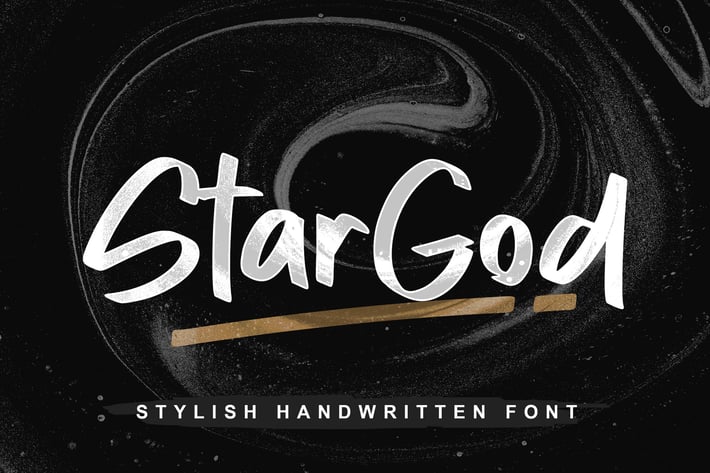
Stargod Business Logotype Font
Stargod is bold and elegant lettered display font. Its friendly feel makes this font incredibly versatile, fitting a wide range of contexts. Add it to your creative ideas and notice how it makes them stand out!